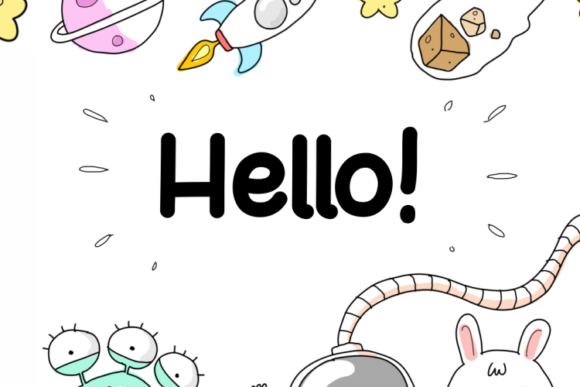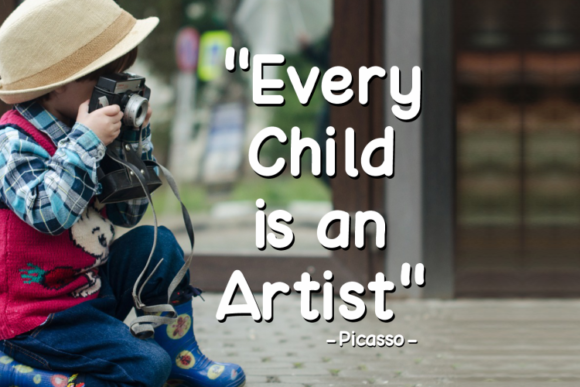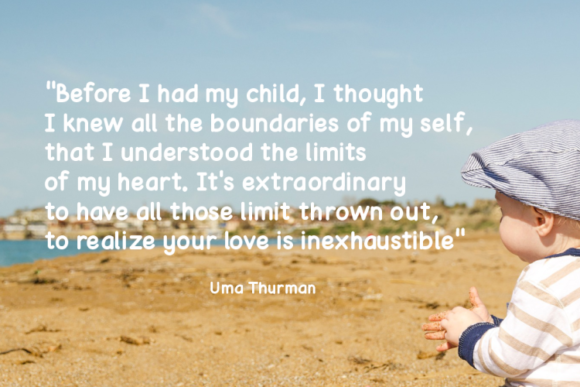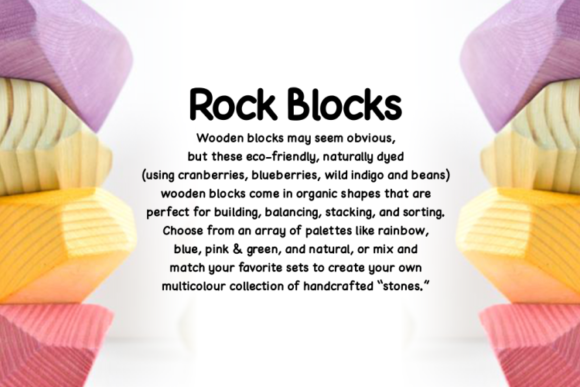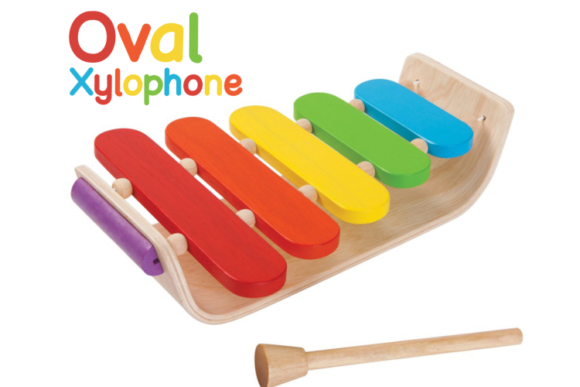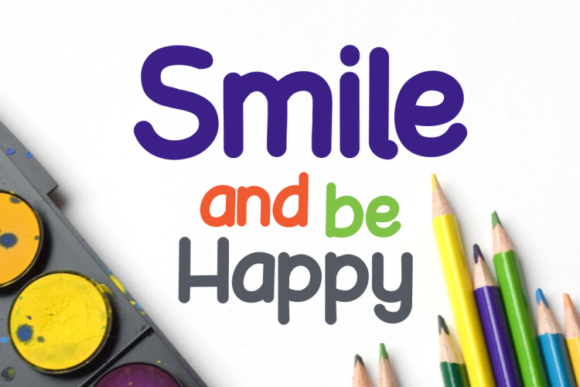
Introducing Adia Font: A Clean and Adaptable Handwritten Font
Are you a designer or crafter looking for a versatile font to elevate your creative projects? Look no further than Adia Font, a clean and adaptable handwritten font that can enhance any creation. In this article, we’ll dive into the features and benefits of Adia Font, and explore how it can become a valuable asset in your font library.
What is Adia Font?
Adia Font is a beautifully crafted handwritten font that exudes a sense of elegance and sophistication. Its clean lines and adaptable design make it perfect for a wide range of applications, from digital projects to print materials. Whether you’re working on a logo, brochure, or social media graphic, Adia Font is sure to make a lasting impression.
Key Features of Adia Font
- Clean and Adaptable Design: Adia Font features a clean and adaptable design that can be used in a variety of contexts, from formal to informal.
- Handwritten Style: The font’s handwritten style adds a touch of personality and warmth to any project.
- Highly Legible: Adia Font is highly legible, making it perfect for body text, headings, and titles.
- Multilingual Support: The font supports multiple languages, making it a great choice for global brands and projects.
Benefits of Using Adia Font
So why should you choose Adia Font for your next project? Here are just a few benefits of using this versatile font:
- Enhance Your Brand Identity: Adia Font can help you establish a consistent brand voice and visual identity across all your marketing materials.
- Stand Out from the Crowd: The font’s unique handwritten style will help your project stand out from the crowd and grab attention.
- Easy to Read and Understand: Adia Font’s high legibility ensures that your message is conveyed clearly and effectively.
- Flexible and Versatile: The font can be used in a wide range of applications, from digital projects to print materials.
- Experiment with Different Styles: Try out different font sizes, colors, and styles to find the perfect look for your project.
- Pair with Other Fonts: Experiment with pairing Adia Font with other fonts to create a unique and visually appealing combination.
Tips and Tricks for Getting the Most out of Adia Font
Here are a few tips and tricks to help you get the most out of Adia Font:
- Use it for Headings and Titles: Adia Font is perfect for headings and titles, where its unique style can really shine.
- Pair it with Images: Combine Adia Font with high-quality images to create visually appealing graphics and social media posts.
- Experiment with Colors: Try out different colors and color combinations to find the perfect look for your project.
- Use it for Body Text: Adia Font’s high legibility makes it suitable for body text, especially for shorter paragraphs and articles.
In conclusion, Adia Font is a clean and adaptable handwritten font that can elevate any creative project. Its unique style, high legibility, and versatility make it a valuable asset in any font library. Whether you’re a designer, crafter, or DIY enthusiast, Adia Font is sure to become a go-to choice for all your typography needs.